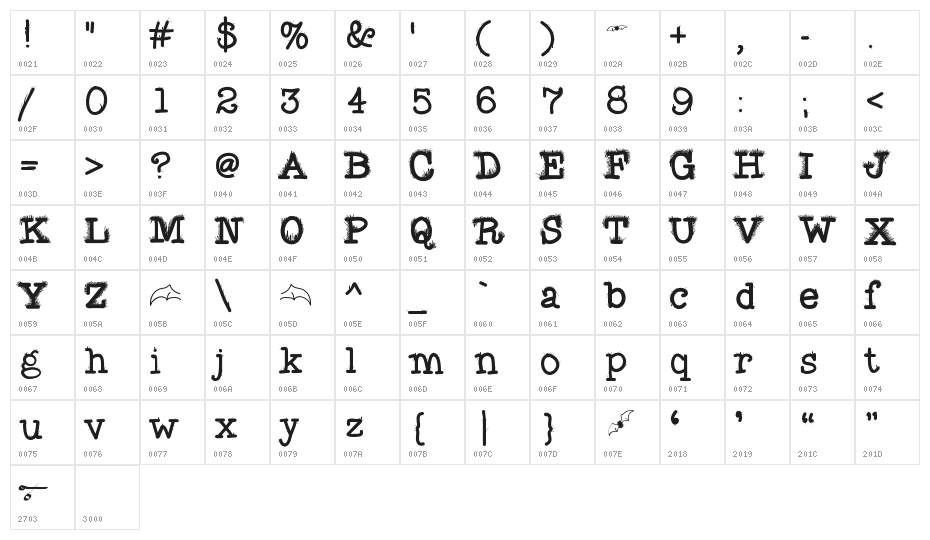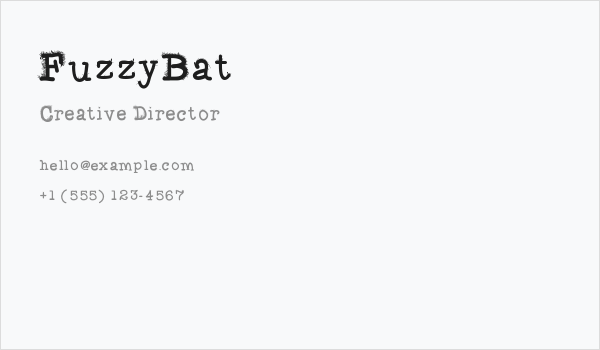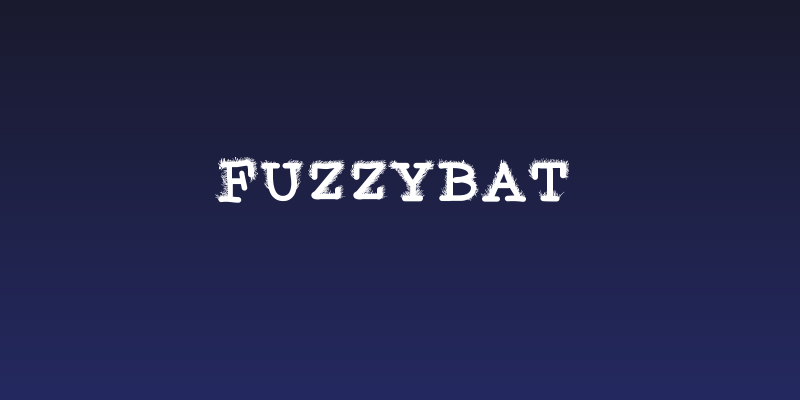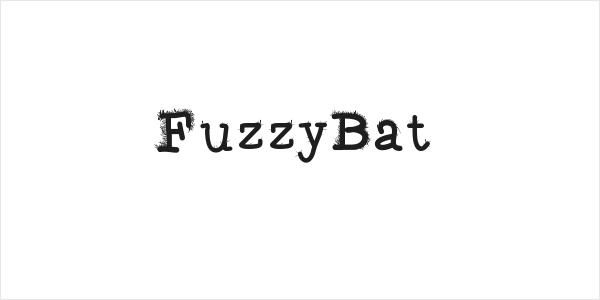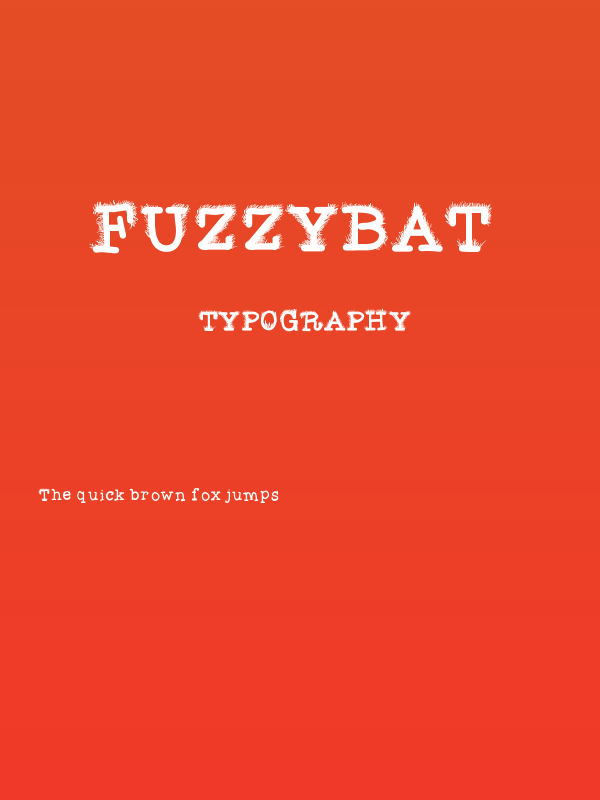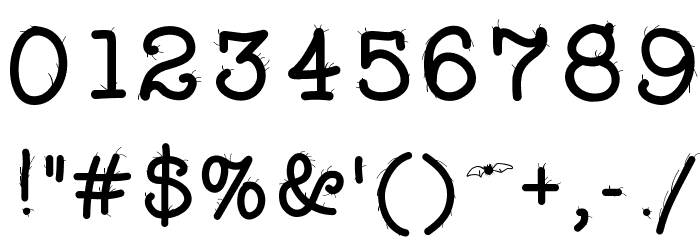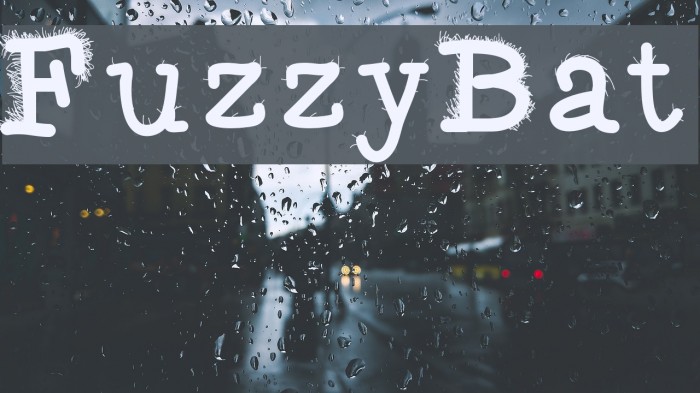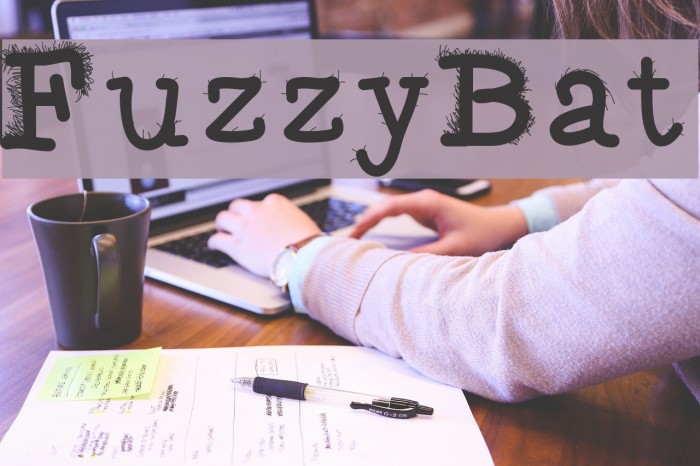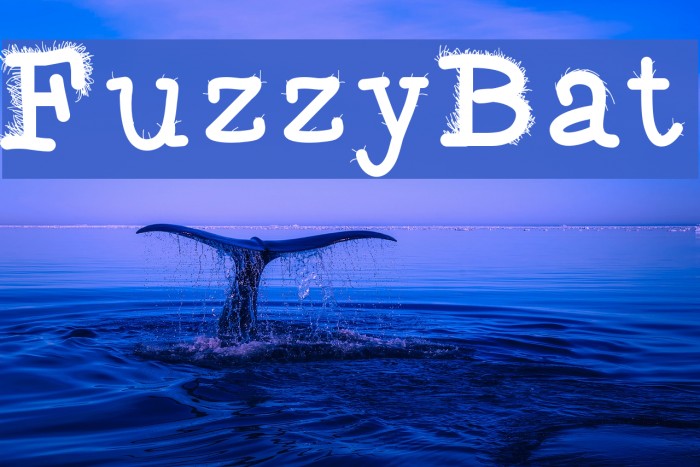
FuzzyBat Font
FuzzyBat Description
This font features a unique, distressed style with a fuzzy, textured appearance that gives it a playful and slightly chaotic look. The characters are bold and have a rough, uneven edge that suggests a sense of movement and energy. The uppercase and lowercase letters maintain a consistent style, with the uppercase being slightly more pronounced. Numbers and special characters follow the same design, ensuring a cohesive look across all elements. This font's distinctive style makes it stand out, adding a creative flair to any design project.
| Proposed Projects | Ideal for Halloween-themed designs, posters, album covers, or any project needing a quirky, eye-catching typeface. |